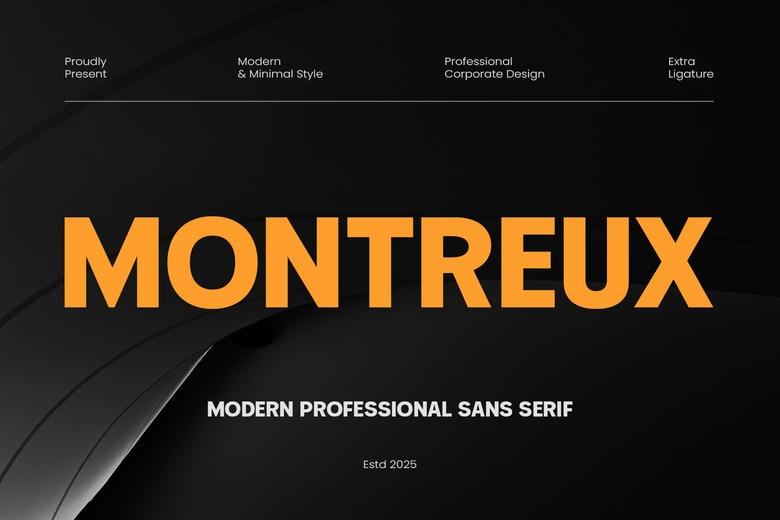
Montreux Font
Montreux is a bold and modern geometric sans-serif font family that draws inspiration from timeless typefaces like Futura and Avant Garde. With its clean lines, sharp edges, and minimal stroke contrast, Montreux embraces the essence of neo-grotesk design, making it a perfect choice for projects that demand a contemporary and professional look. Its large x-height ensures excellent readability, even at smaller sizes, while the geometrical letterforms lend a sleek and sophisticated vibe to your design.
Montreux Sans Serif Font